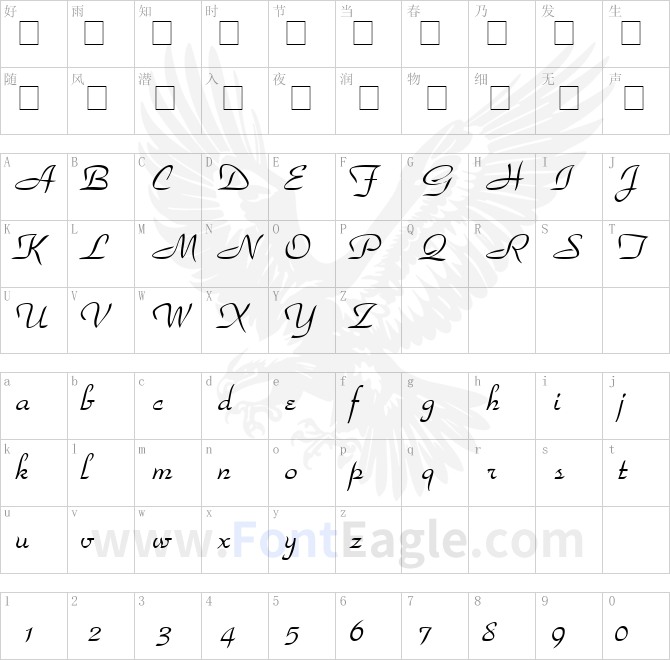
- Font name:Park Avenue
- Font Subfamily ID:FontMonger:Park Avenue Normal
- Font Full Name:Park Avenue Normal
- Postscript:ParkAvenueNormal
- Font Copyright:AzBuki press 1991